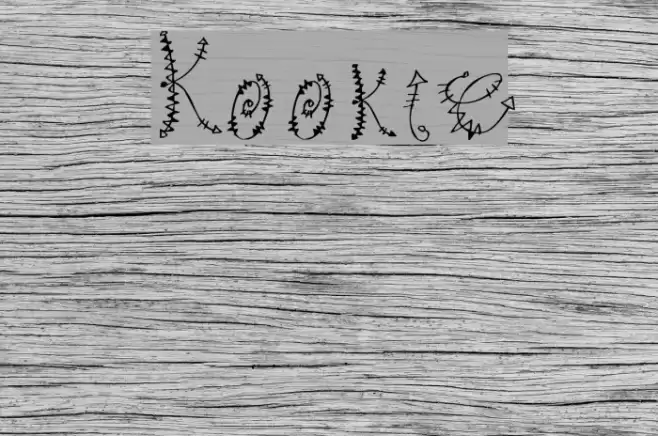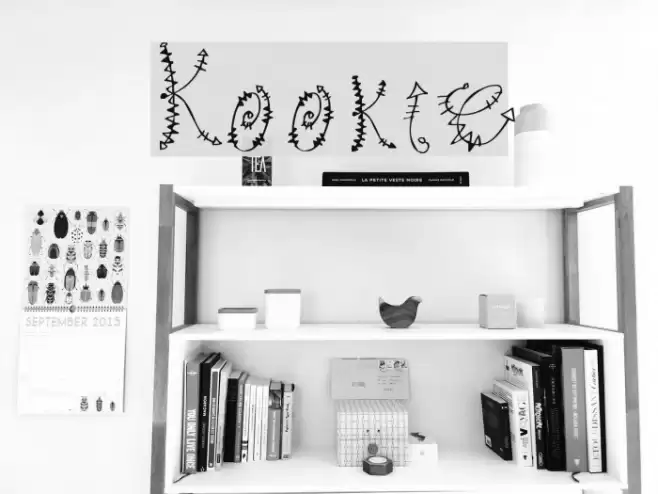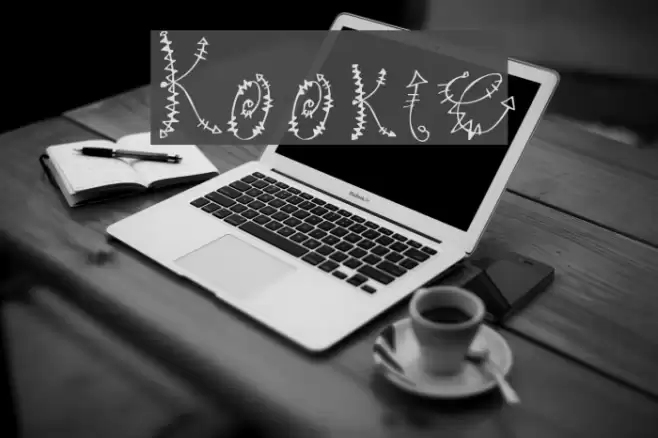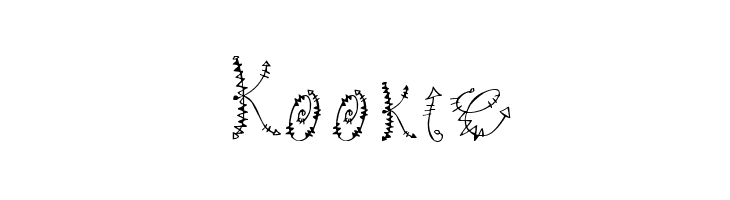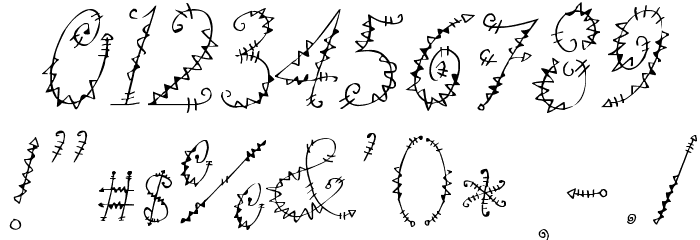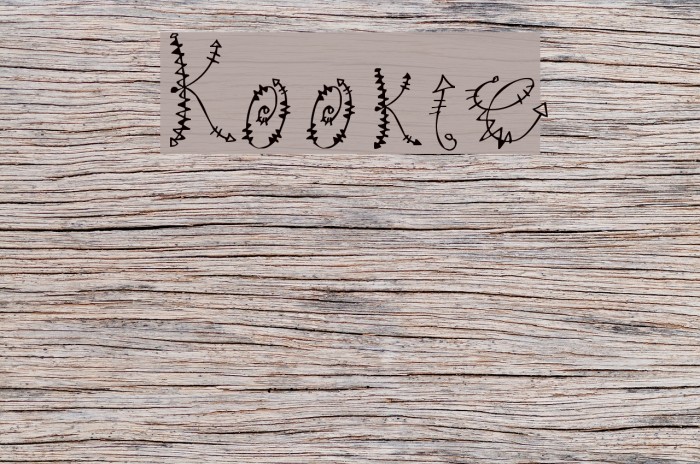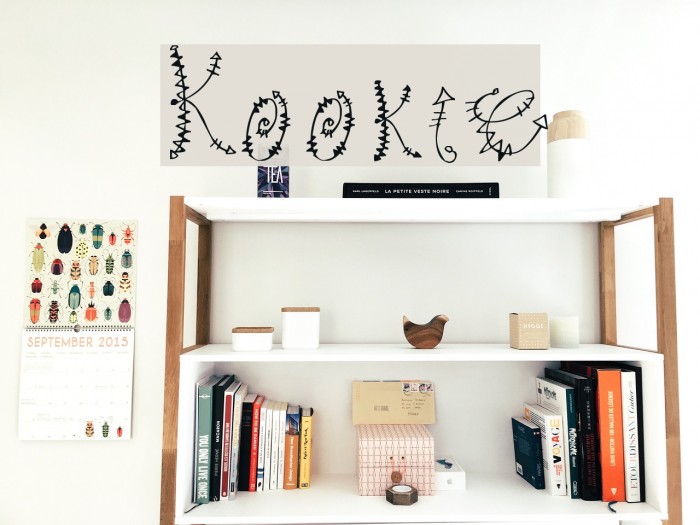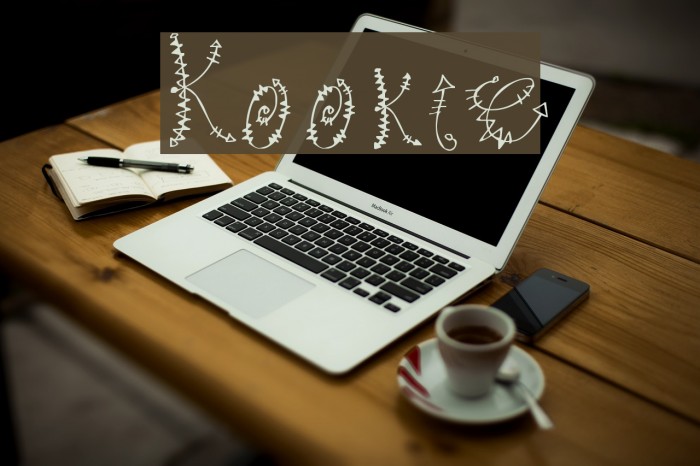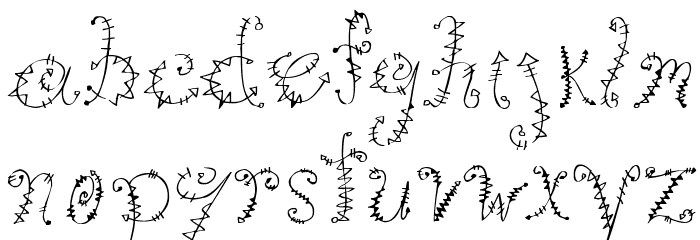
Kookie Font
Kookie Description
This font features a whimsical and playful design, characterized by its intricate and decorative elements. Each character is adorned with unique embellishments, such as swirls, spikes, and curls, giving it a lively and dynamic appearance. The font maintains a consistent style across uppercase, lowercase, numbers, and special characters, ensuring a cohesive look. Its artistic flair makes it stand out, perfect for projects that require a touch of creativity and fun. The overall design is both eye-catching and distinctive, making it suitable for various creative applications.
A whimsical and decorative font with intricate embellishments from Decorative fonts.
- Proposed Projects: Ideal for children's book covers, playful posters, creative branding, and artistic invitations.
- Use Case: Headlines, Logos, Creative projects